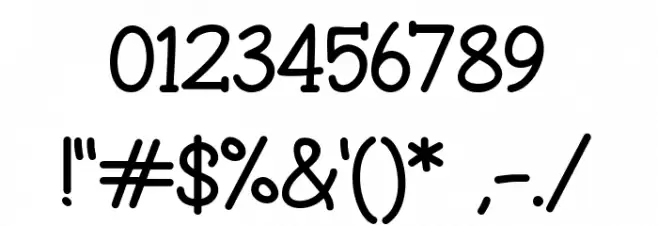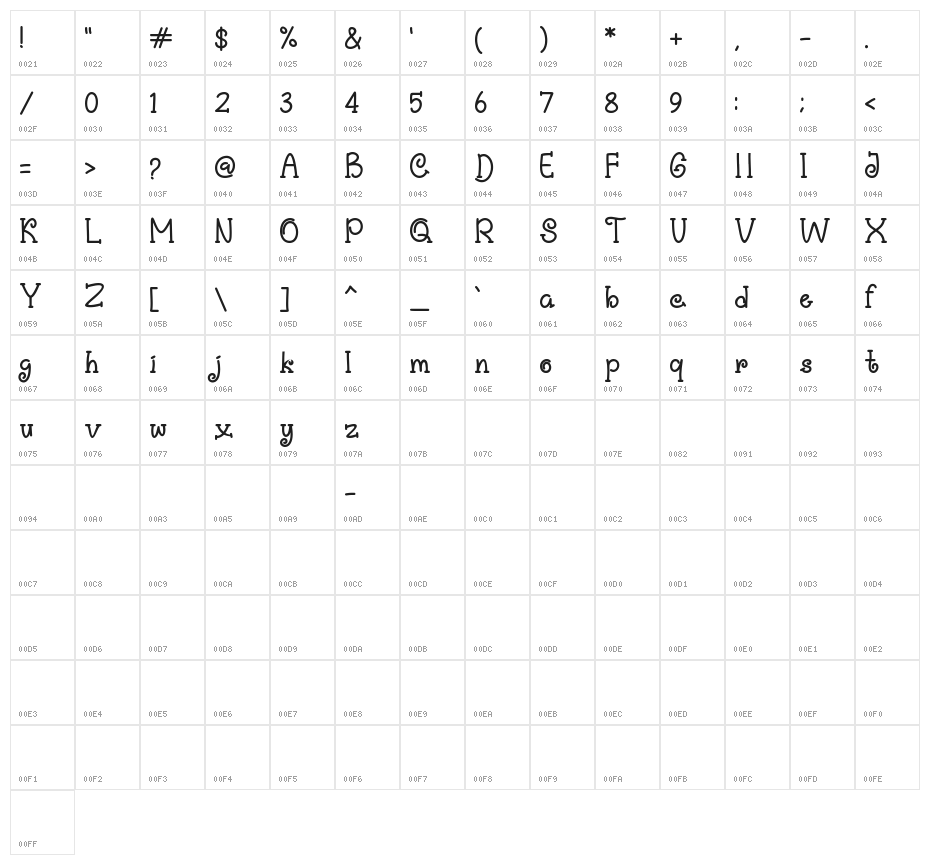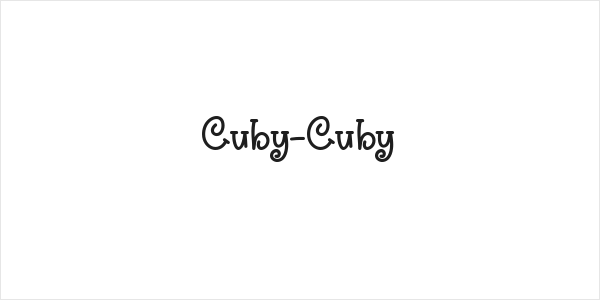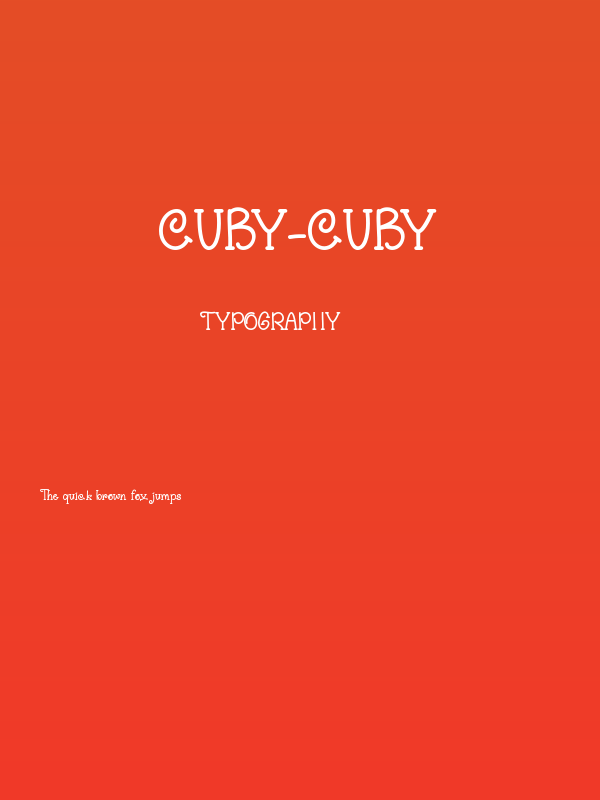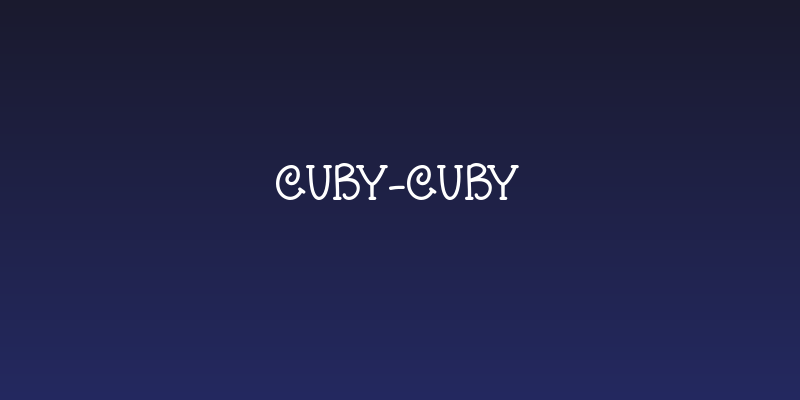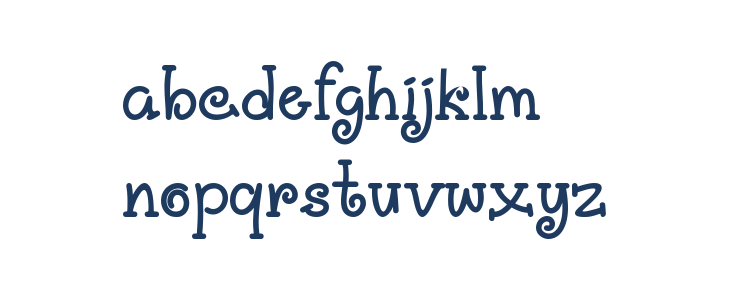
Cuby-Cuby Font
Cuby-Cuby Description
This playful and whimsical font features a unique blend of rounded and curly elements, giving it a lively and energetic appearance. The uppercase letters are bold and slightly irregular, with distinctive loops and curves that add a sense of movement. The lowercase letters maintain this playful style, with some characters featuring exaggerated tails and swirls. The numbers are consistent with the overall design, offering a cohesive look. Special characters are creatively integrated, maintaining the font's quirky and fun aesthetic. This font is perfect for projects that require a touch of creativity and personality.